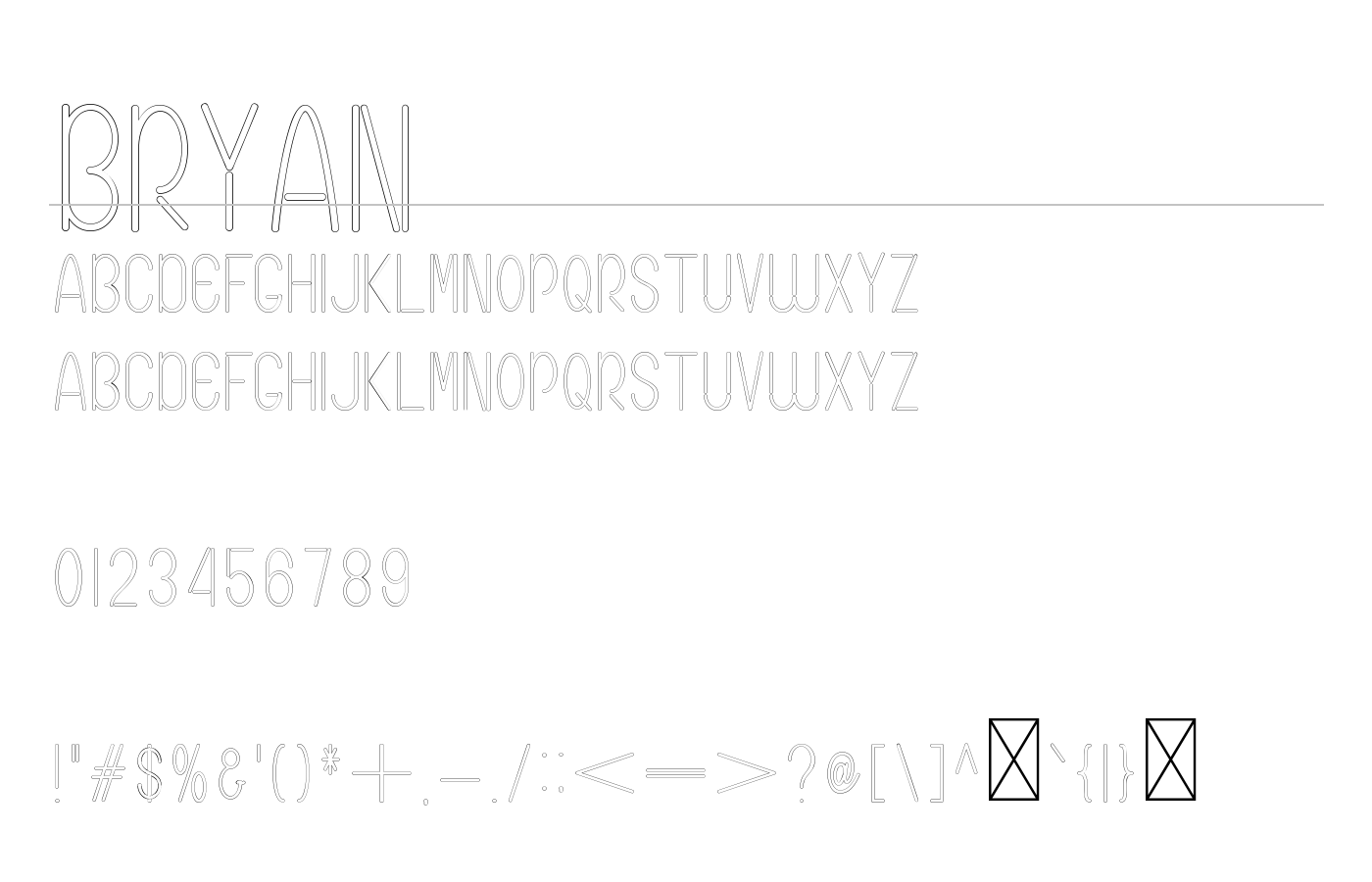
Bryan Font is a modern and sleek sans serif typeface characterized by its ultra-thin, geometric lines and tall, narrow letterforms that convey a sense of elegance and minimalism. Its clean, outlined style with consistent stroke weight and distinctive shapes makes it ideal for stylish headlines, logos, and contemporary branding where a light, airy, and sophisticated feel is desired. This font works well in fashion, editorial, and digital design contexts that seek a refined yet striking visual impact.
Bryan Font
About Bryan Font
| Font family | Bryan Font |
| Designer | Anjas Cov Cava Lera |